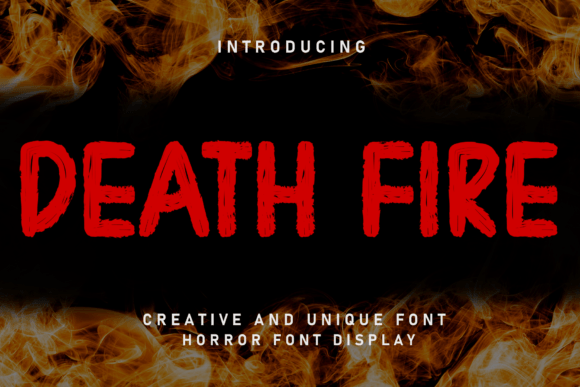
Dive into the scorching flames of creativity with Death Fire Font - a display font crafted with fiery passion and forged in the heart of Roronoa Zoro.S.P.D. Ignite your designs with this exceptionally unique font, poised to transform your words into a captivating spectacle.
Death Fire Font is not just a font; it's an inferno of creativity, ready to set your projects ablaze with its bold and commanding presence. Unleash your inner artist and watch as your designs erupt into a symphony of fire and passion.
With Death Fire Font, you hold the power to forge unforgettable logos that burn bright in the minds of your audience. Craft business cards that sizzle with professionalism and leave a lasting impression. Turn your presentations into fiery masterpieces, commanding attention and igniting inspiration.
This font is an inferno of creativity, just waiting to set your designs ablaze with its bold and commanding presence. Unleash your inner artist and watch as your designs erupt into a symphony of fire and passion.
But Death Fire Font isn't just for the corporate world; it's also a font that ignites the imagination. Unleash your inner artist and let your creativity soar as you conjure stunning posters, flyers, and social media graphics that dance with flames and captivate your audience.
But the true magic of Death Fire Font lies in its versatility. It effortlessly adapts to a myriad of design styles, from the classic and elegant to the modern and edgy. Whether you're a seasoned designer or just starting, this font will ignite your passion and help you create designs that leave an indelible mark.